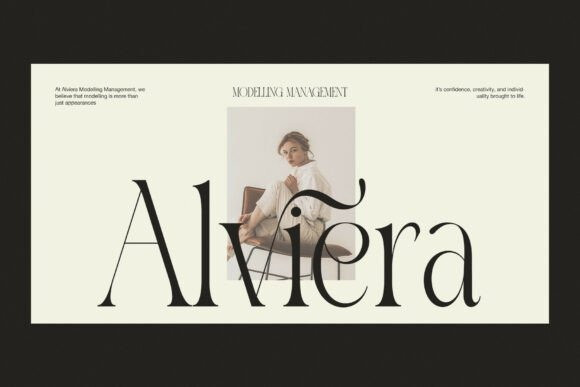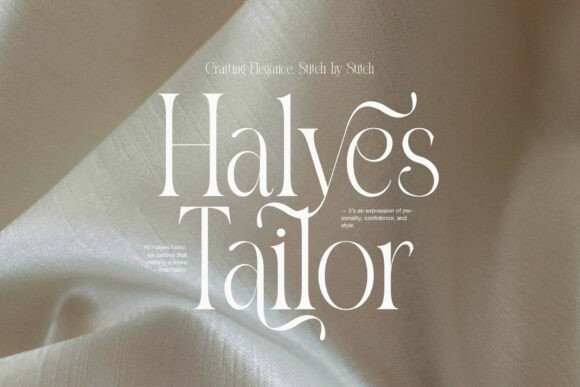
Kamila Serif Font
Kamila Serif Font is an elegant serif display font created to express beauty, emotion, and refined character. Inspired by editorial design and modern luxury aesthetics, this font combines graceful curves with confident serif structures. As a result, Kamila feels timeless while still appearing fresh and expressive across contemporary projects.
This serif font features smooth contrast, delicate terminals, and artistic details that enhance visual flow. Moreover, the letterforms create a calm rhythm that works beautifully in headlines and branding. Because Kamila includes stylish alternates and carefully crafted ligatures, designers can shape typography that feels distinctive and personal.